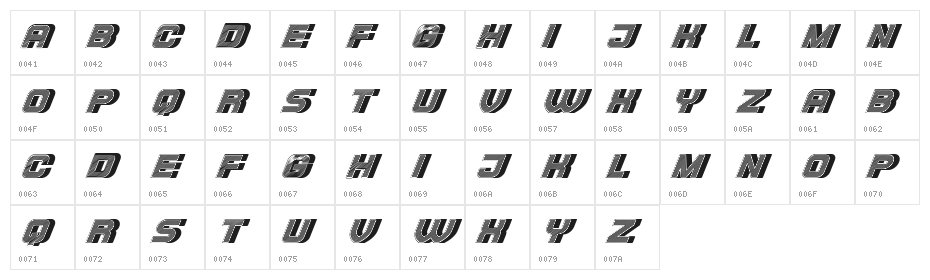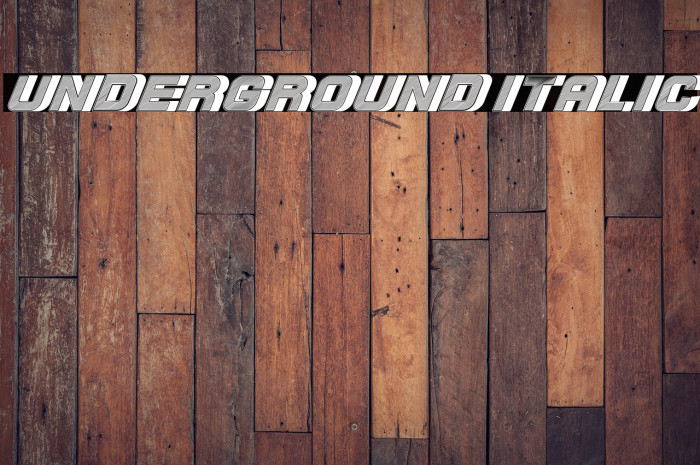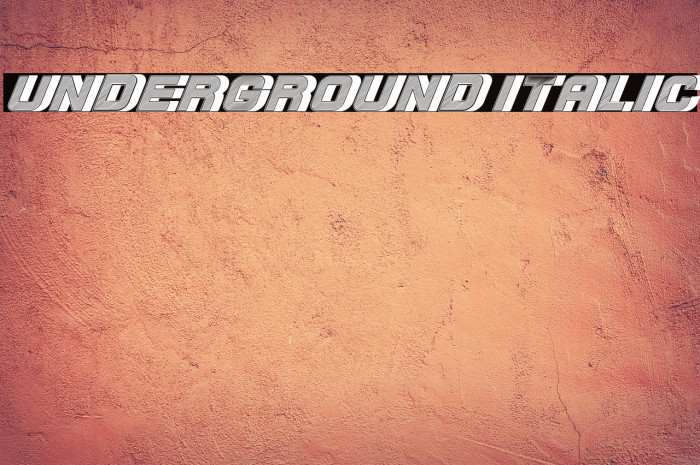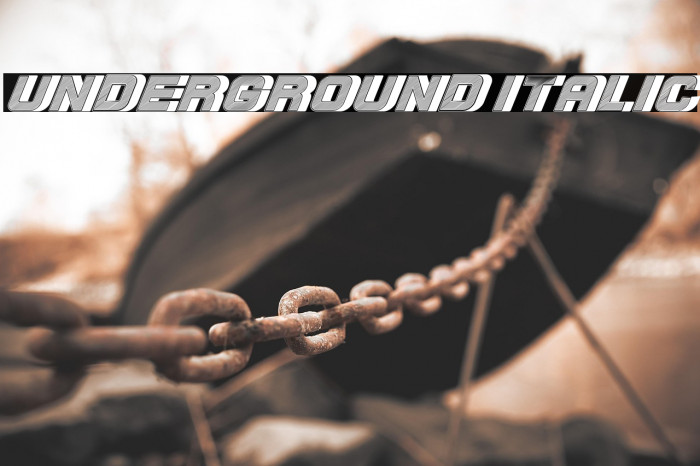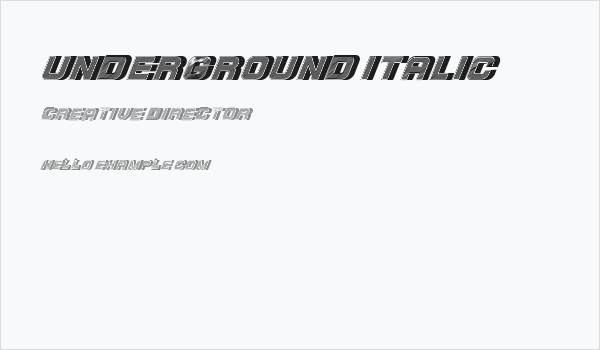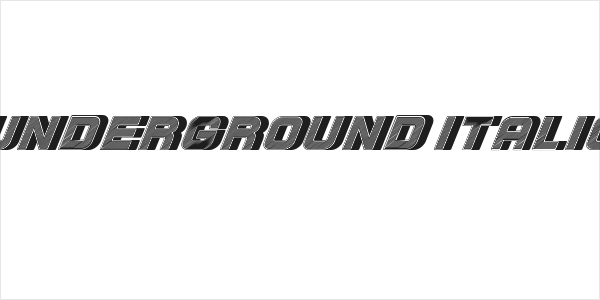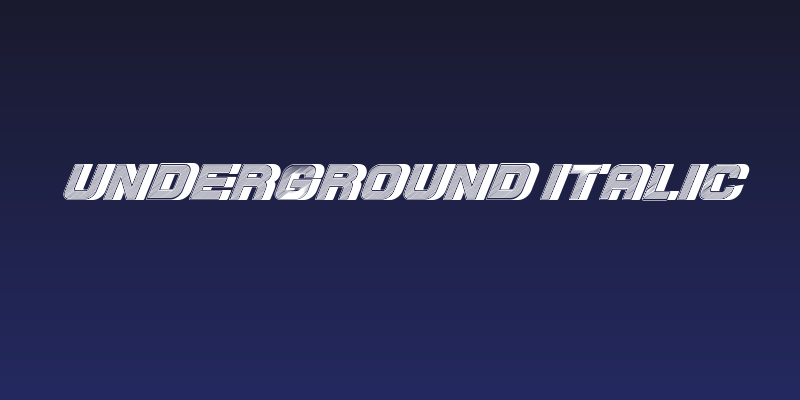
Underground Italic Font
Underground Italic Description
This font features a bold, italicized style with a distinct modern flair. The characters are designed with a dynamic slant, giving them a sense of motion and energy. Each letter is crafted with a solid, robust appearance, enhanced by a subtle three-dimensional effect that adds depth. The strokes are thick and consistent, providing a strong visual impact. The font maintains a uniform width across all characters, ensuring readability while retaining its unique style. The overall design is sleek and contemporary, making it suitable for various creative applications.
| Proposed Projects | Ideal for sports branding, dynamic posters, modern advertising, and edgy graphic design projects. |